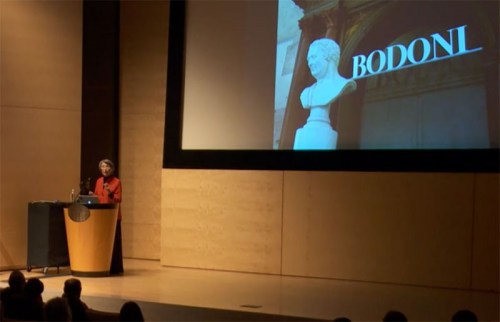
In her slide presentation, Valerie Lester sets Bodoni in the context of the places and the era in which he lived, and presents some rarely-seen images of his work. She introduces the people with whom he worked and who influenced him, paying special attention to his father in Saluzzo; to Cardinal Spinelli in Rome; to Fournier; to his employers, the duke and duchess of Parma; to Guillaume du Tillot, the prime minister of Parma; to the Amoretti family of printers; to his talented and loving wife, Margherita Dall’Aglio; to the Didots; and to his two great patrons, Nicolás de Azara and Joachim Murat (Napoleon’s brother-in-law). And of course, she does not forget to describe the food he ate and the wine he drank.